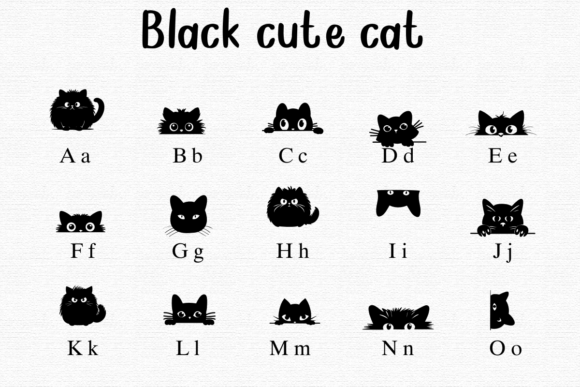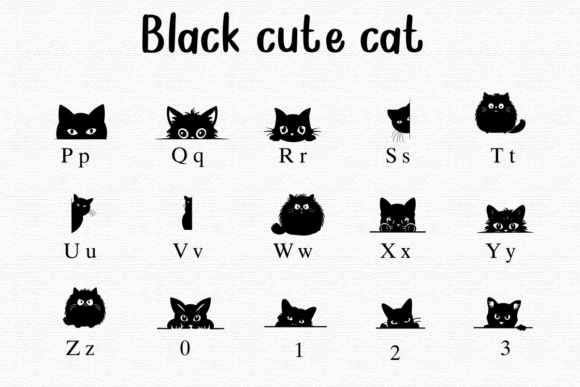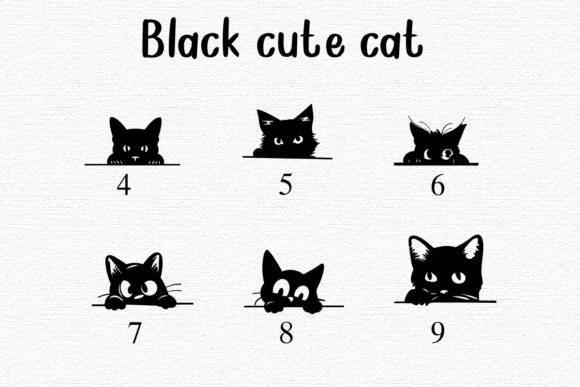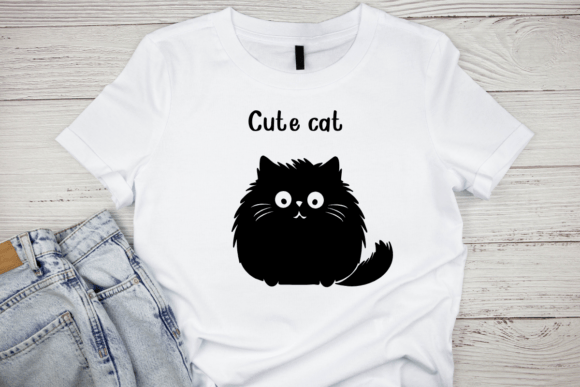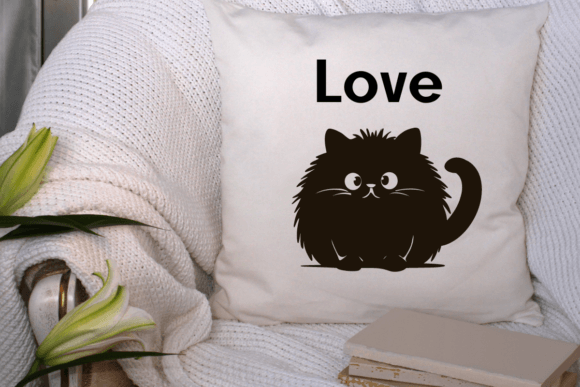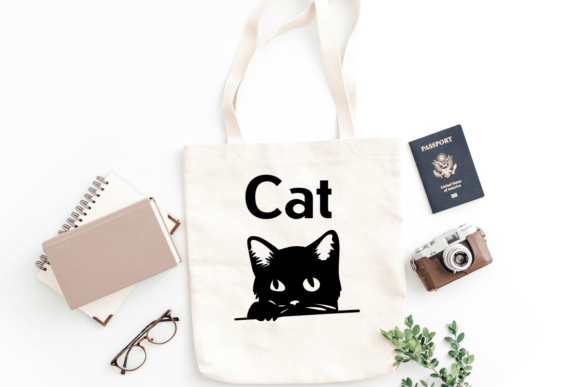
Introducing the Black Cute Cat Font: A Playful Dingbat Font for Designers and Crafters
Are you looking for a fun and playful font to add a touch of whimsy to your designs? Look no further than the Black Cute Cat Font! This adorable dingbat font features a cute black cat peeking out in various poses, making it perfect for designers and crafters who want to add a dash of charm to their projects.
What is the Black Cute Cat Font?
The Black Cute Cat Font is a unique dingbat font that showcases an adorable black cat in different poses. Each symbol in the font features the cute cat peeking out, making it a delightful addition to any design. Whether you’re creating greeting cards, invitations, or social media graphics, this font is sure to bring a smile to your audience’s faces.
Key Features of the Black Cute Cat Font
- Playful and Whimsical: The Black Cute Cat Font is perfect for designers and crafters who want to add a touch of playfulness to their designs.
- Adorable Black Cat: The font features an adorable black cat peeking out in various poses, making it a great choice for cat lovers.
- Dingbat Font: The Black Cute Cat Font is a dingbat font, which means that each symbol is a graphical representation of the cat, rather than a traditional letter or number.
Uses for the Black Cute Cat Font
The Black Cute Cat Font is versatile and can be used in a variety of design projects, including:
- Greeting Cards: Add a touch of whimsy to your greeting cards with the Black Cute Cat Font.
- Invitations: Make your invitations stand out with this playful font.
- Social Media Graphics: Add some personality to your social media graphics with the Black Cute Cat Font.
- Scrapbooking: Use the font to add a personal touch to your scrapbooking projects.
- Crafting: The font is perfect for crafters who want to add a playful touch to their projects, such as knitting patterns or sewing projects.
Tips for Using the Black Cute Cat Font
Here are some tips for using the Black Cute Cat Font in your designs:
- Mix and Match: Experiment with different poses and symbols to create a unique look.
- Use with Other Fonts: Combine the Black Cute Cat Font with other fonts to create a contrasting look.
- Color Scheme: Choose a color scheme that complements the black cat, such as pastel colors or bright and bold colors.
- Play with Size: Experiment with different font sizes to create visual interest.
The Black Cute Cat Font is a playful and whimsical dingbat font that is perfect for designers and crafters who want to add a touch of charm to their designs. With its adorable black cat peeking out in various poses, this font is sure to bring a smile to your audience’s faces. Whether you’re creating greeting cards, invitations, or social media graphics, the Black Cute Cat Font is a great choice.